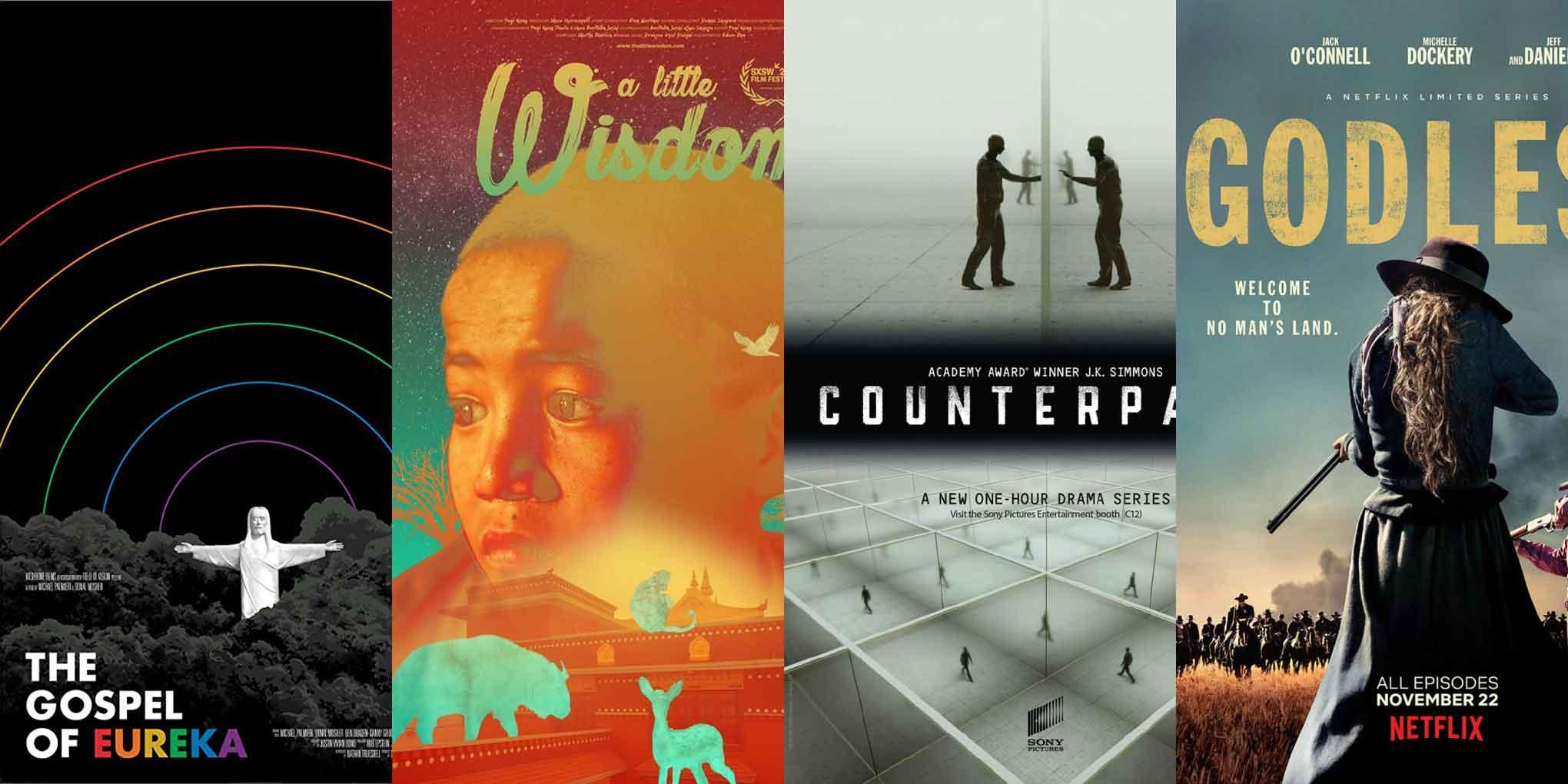
The Gospel of Eureka and Counterpart win Film Design Awards at South by Southwest
From the Lone Star State, Yves Peters reports on the winners of the awards for Excellence in Poster Design and Excellence in Title Design at the 2018 SXSW Film Festival.
Howdy from Austin, where I gave an SXSW Interactive presentation called “The Secret Language of Movie Posters.” During some downtime, I managed to catch a screening of the film-title sequences competing for the Excellence in Title Design award. I also had fun perusing the contenders for the Excellence in Poster Design award in the Austin Convention Center. SXSW announced the winners on its website on Saturday, March 17. Here’s a recap.
Counterpart (main title) from Imaginary Forces.Winner: Counterpart.
Designed and produced by Imaginary Forces.
Director: Karin Fong.
Lead Animator/Designer: Jake Ferguson.
Karin Fong’s title sequence delves into an intricate world of parallel dimensions, doppelgängers, secrets, and suspense. Repeating and morphing patterns combine with the monospaced rhythm of a typewriter font to create an alienating, dreamlike sequence that resolves into a New-Deal-style faceted sans for the show’s title.
Godless (main title) from Method Studios.Special Jury Recognition: Godless.
Director: John Likens.
Executive Creative Director: Jon Noorlander.
Computer Graphics Supervisor: Ivan Guerrero.
Method’s design team crafted an artfully gritty opening title sequence for this feminist Western series. Incorporating themes and visual cues from the script plunges viewers into the dusty, dangerous Wild West of the 1880s. A slab serif similar to Belizio spells out the credits, with a transitional serif face that looks like Baskerville as the supporting typeface. Matthew Carter’s Big Moore was inspired by the same models.